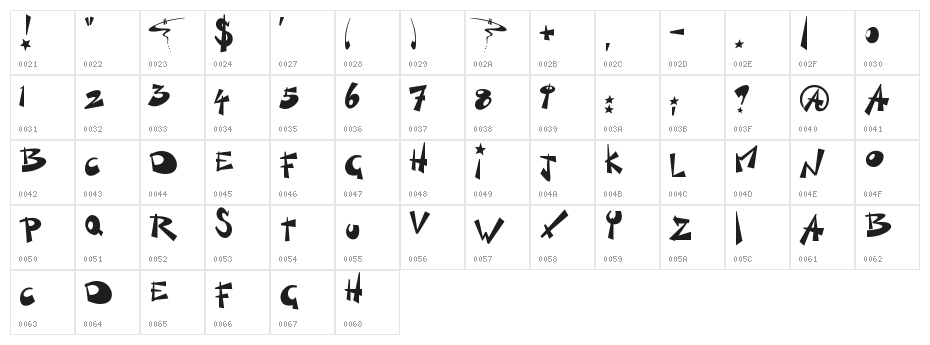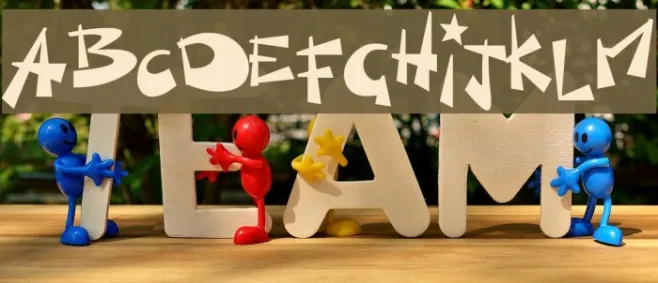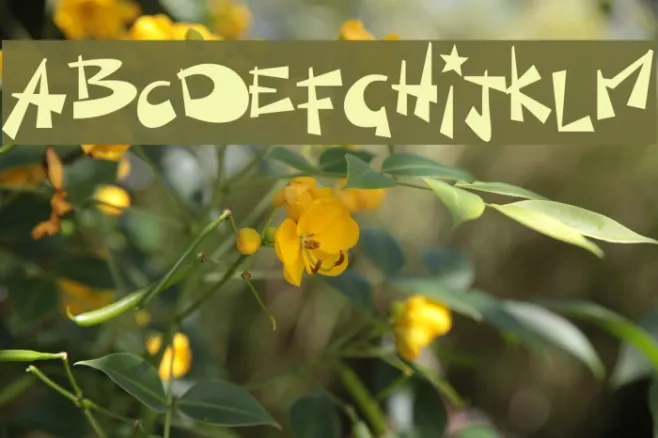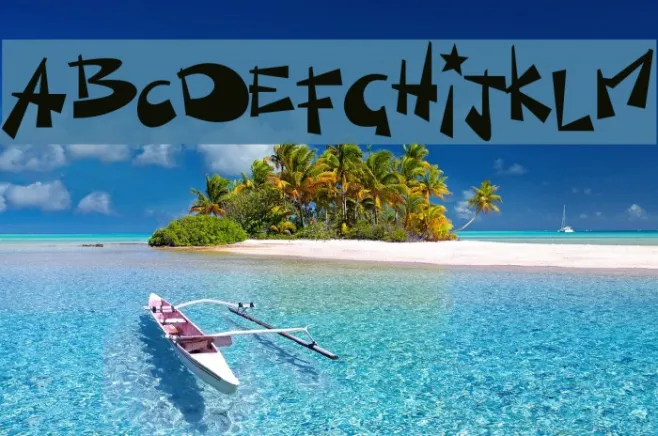
Kill-Switch Font
Kill-Switch Description
This font features a bold and playful style with exaggerated, irregular shapes and a dynamic, energetic feel. The characters are highly stylized with a mix of sharp angles and rounded forms, giving it a whimsical and rebellious appearance. The uppercase and lowercase letters maintain a consistent design theme, with unique embellishments such as stars and crosses integrated into the letterforms. The numbers and special characters follow the same playful and bold aesthetic, making the font suitable for creative and unconventional projects. Its distinct personality makes it stand out, capturing attention with its quirky and artistic flair.
| Proposed Projects | Ideal for comic books, children's book covers, music album art, posters, and creative branding. |